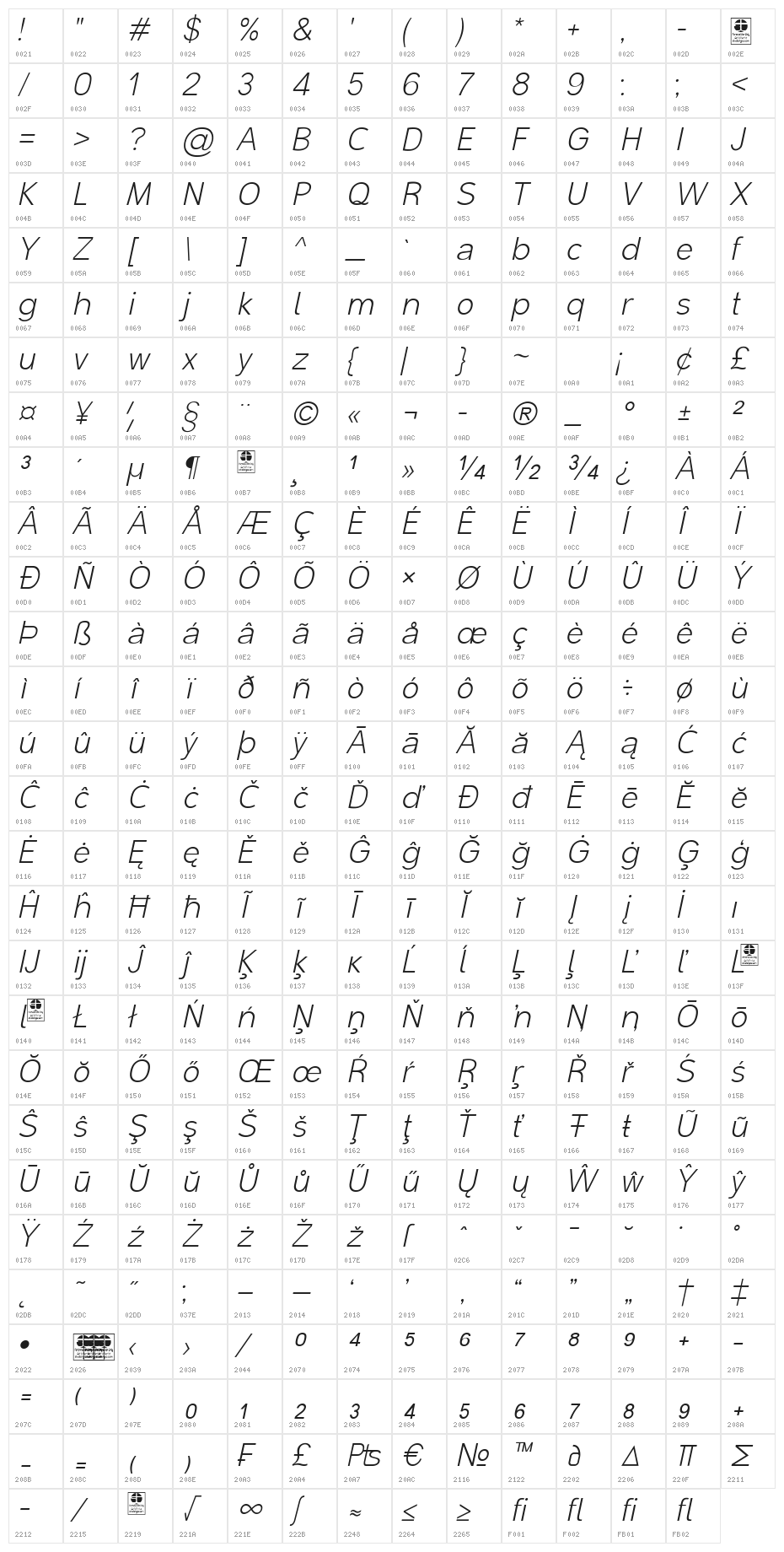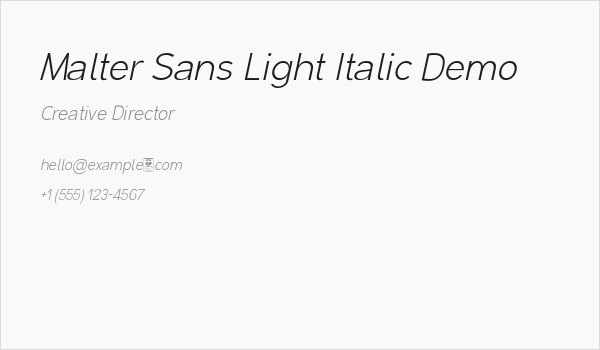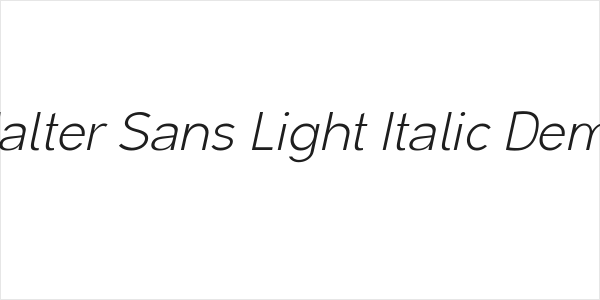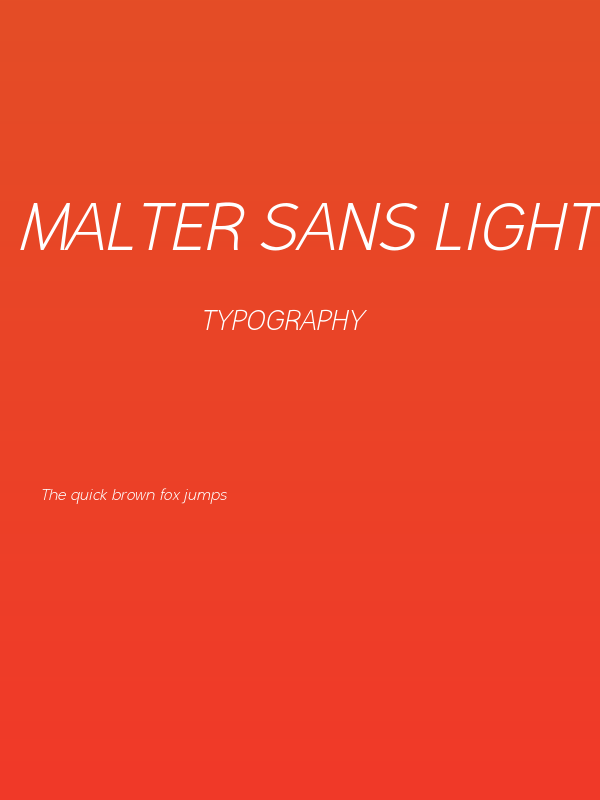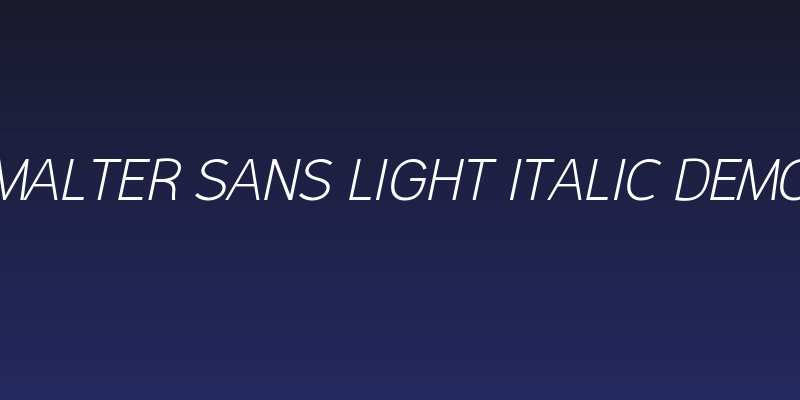
Malter Sans Light Italic Demo Font
Malter Sans Light Italic Demo Description
This font features a sleek and modern sans-serif design with a light weight and italic style. The characters are elegantly elongated with smooth curves and a slight slant, giving it a dynamic and contemporary appearance. The uppercase and lowercase letters maintain a consistent style, with clean lines and minimal contrast in stroke thickness. The numerals are clear and easy to read, while the special characters are well-integrated into the overall design. The spacing between characters is balanced, providing a harmonious flow in text.